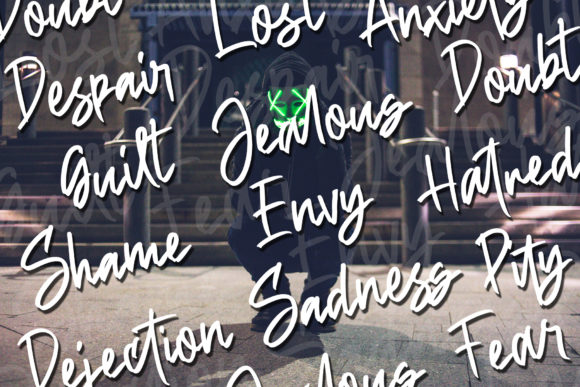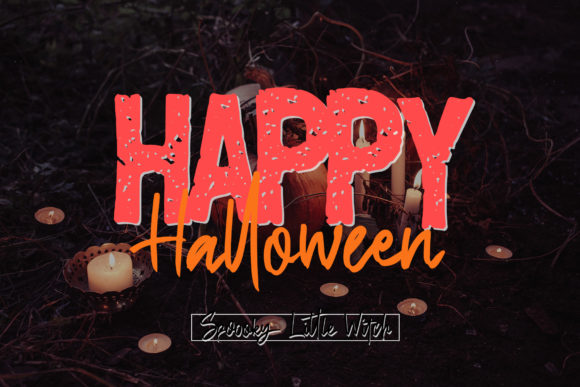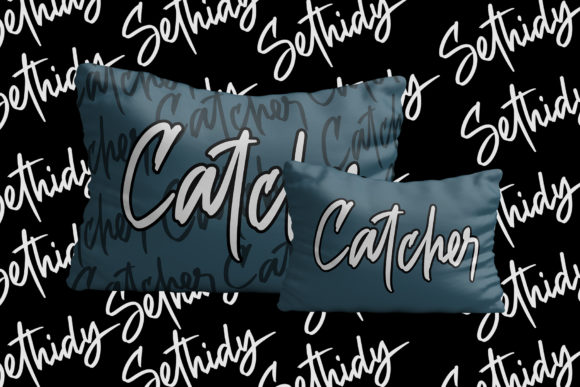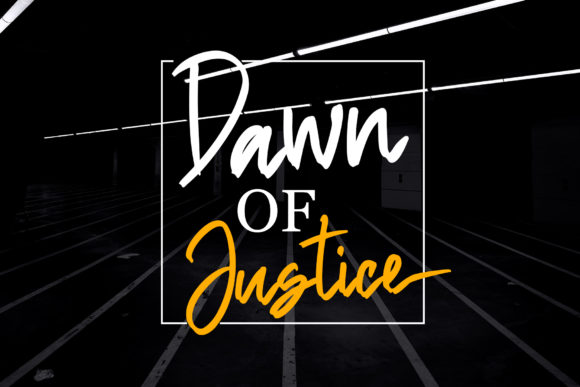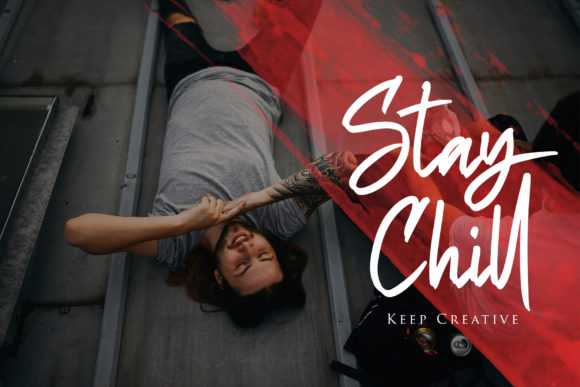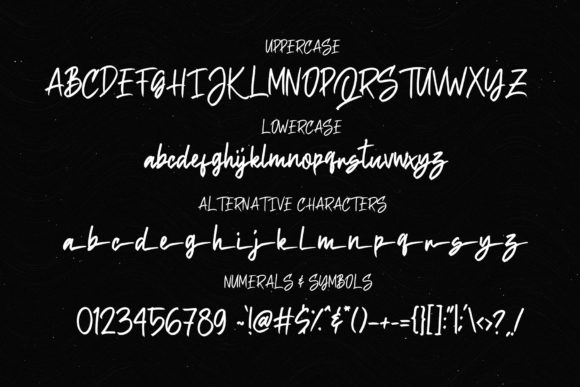
Introduction to Sethidy Font
Have you ever stared at a blank page, waiting for inspiration to strike? For designers, this moment can be a daunting experience, especially when tasked with creating a unique and captivating visual identity. It’s in these moments that a special type of magic happens – the kind that’s sparked by discovering a font that perfectly captures the essence of your creative vision.
Enter the enchanting Sethidy Font, a casual yet elegant handwritten typeface that exudes a discrete charm. This one-of-a-kind font is a game-changer for designers looking to add a personal touch to their projects, from branding to editorial design. Whether you’re working on a high-quality magazine spread or a creative project with a transparent background, Sethidy Font is sure to elevate your design resource to the next level.
Key Features of Sethidy Font
- Unique and Creative Design: The Sethidy Font is designed to provide a distinctive look for your creative projects, making it an excellent design resource.
- Transparent Background: This font features a transparent background, allowing you to easily customize and integrate it with any design element.
- Large Character Set: The Sethidy Font includes a wide range of characters, including uppercase and lowercase letters, numbers, and special symbols.
- High Resolution: The font is designed with high resolution in mind, making it suitable for use in various design applications, including print and digital media.
- Perfect for Designers: The Sethidy Font is an excellent choice for designers working on creative projects, offering a unique and stylish design element that can elevate their work.
Honest Review: Sethidy Font
As a designer, I’m always on the lookout for high-quality fonts to elevate my creative projects. The Sethidy Font caught my attention with its unique and modern design. I was excited to dive in and see if it lives up to its promise.
- Unique Design: Sethidy Font has a distinct aesthetic that sets it apart from more generic fonts. Its sleek and modern lines make it perfect for contemporary design projects.
- High Quality: The font is crisp and clear, with well-defined letterforms that make it easy to read. It’s perfect for use in both digital and print media.
While Sethidy Font is a great addition to any design collection, there are a few limitations to consider:
- Transparent Background: Some users may find that the font’s transparent background can be difficult to work with, especially when using it in designs with complex backgrounds.
- Limited Character Set: The font’s character set is relatively limited, which may not be ideal for designers who need to work with a wide range of languages or special characters.
Overall, I’m impressed with Sethidy Font’s unique design and high quality. While it may have some limitations, it’s a valuable resource for designers who are looking for a modern and stylish font to add to their collection.
The Sethidy Font is a versatile design resource that can elevate your creative project with its unique style and high-quality aesthetic.
To use the Sethidy Font in Canva, simply upload the font file and select it from the font dropdown menu. This font works well with transparent backgrounds, making it perfect for creating eye-catching graphics and designs.
In Adobe Photoshop and Illustrator, you can install the Sethidy Font and use it as you would any other font. This font is particularly useful for creating high-quality graphics and designs that require a professional touch.
To use the Sethidy Font in PowerPoint and Word, simply install the font and select it from the font dropdown menu. This font is a great choice for presentations and documents that require a unique and creative touch.
Yes, Sethidy Font is designed with a transparent background, making it easy to use in various design contexts. This feature allows you to layer the font over other design elements without any visual distractions. You can also adjust the background to suit your design needs.